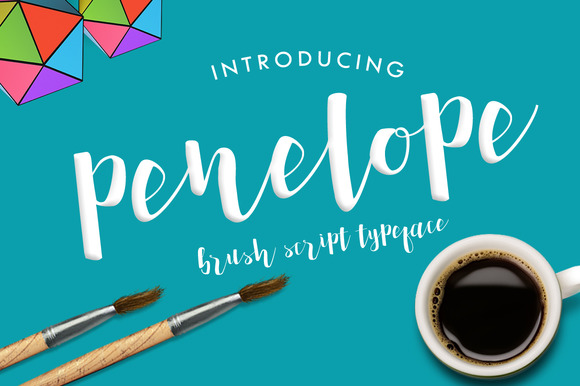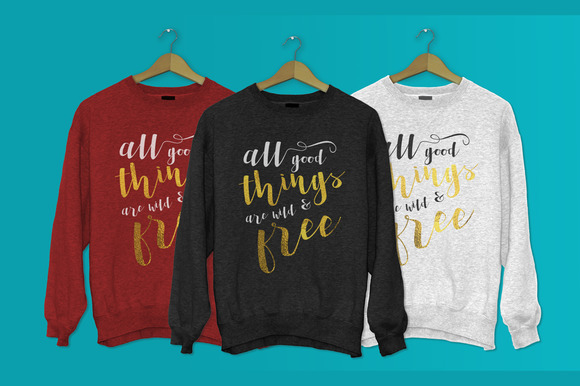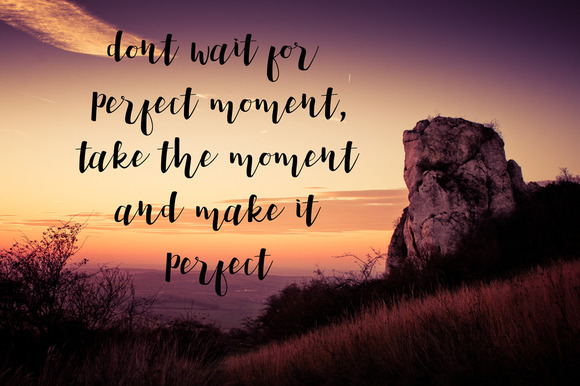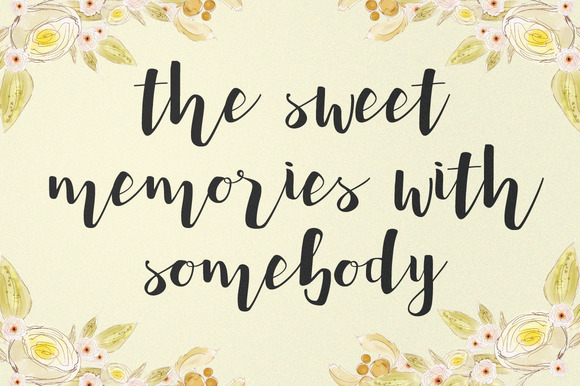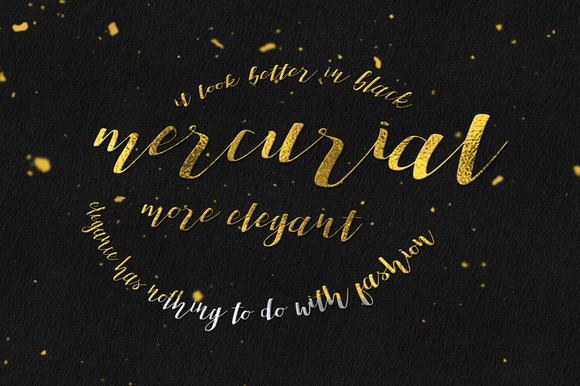
Penelope Brush Script Font
Penelope Brush Script: A Modern Hand-Drawn Typeface
Penelope Brush Script is a charming, hand-drawn typeface that combines elegance with a modern flair. This versatile font features fluid brush strokes and a natural style, making it perfect for various design projects.
Key Features
Elegant and Fluid Design:
The font showcases a natural, flowing style that adds warmth and personality to any design. Its unique brush strokes and varying line thickness create a dynamic, handcrafted appearance. Versatile Applications:
This script font excels in multiple design contexts:
• Logo Design: Create memorable brand identities
• Wedding Invitations: Add a romantic touch to stationery
• Branding Materials: Convey a friendly, approachable image
• Posters and Flyers: Capture attention with eye-catching typography
• Social Media Graphics: Enhance online presence with stylish text
Enhancing Your Designs
The font’s elegant curves and natural flow make it ideal for projects requiring a personal touch. Its unique characteristics can help your designs stand out in a crowded market, whether you’re creating logos, invitations, or promotional materials.
Creative Customization
In addition to standard letters, Penelope Brush Script includes decorative characters from A to Z. This feature allows for creative customization, enabling designers to craft truly unique and eye-catching typography.
With its blend of modern style and handcrafted charm, Penelope Brush Script Font is an excellent choice for designers seeking to add a touch of elegance and personality to their projects. Its versatility and ease of use make it a valuable addition to any typographic toolkit.